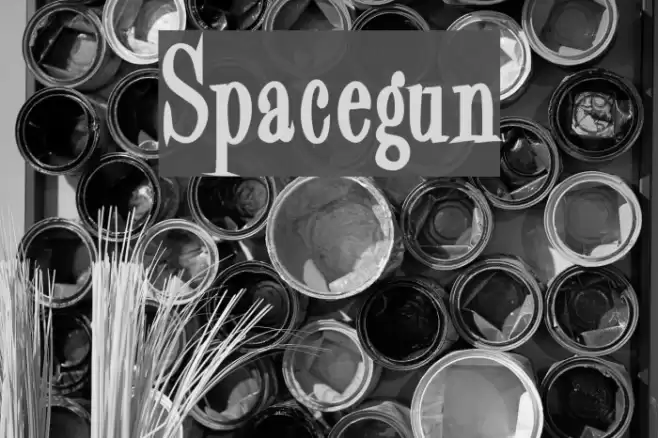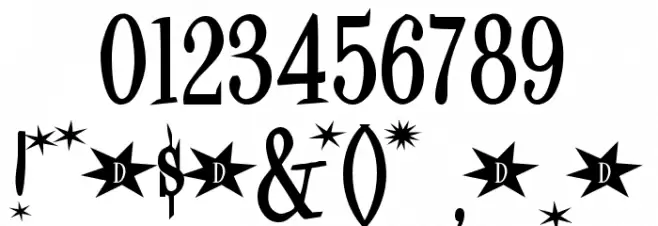
Spacegun Font
Spacegun Description
This font features a bold and dynamic style with a strong presence. The uppercase letters are tall and slightly condensed, giving a sense of authority and impact. The lowercase letters maintain a consistent weight, complementing the uppercase with a more rounded and approachable feel. Numbers are clear and legible, designed to stand out with their bold strokes. Special characters are creatively integrated with star-like embellishments, adding a unique decorative touch. Overall, the font combines elements of traditional serif with modern decorative flair, making it versatile for various creative applications.
A bold, decorative serif font with star-themed embellishments from Uncategorized fonts.
- Proposed Projects: Ideal for posters, album covers, branding projects, and any design requiring a bold, eye-catching typeface.